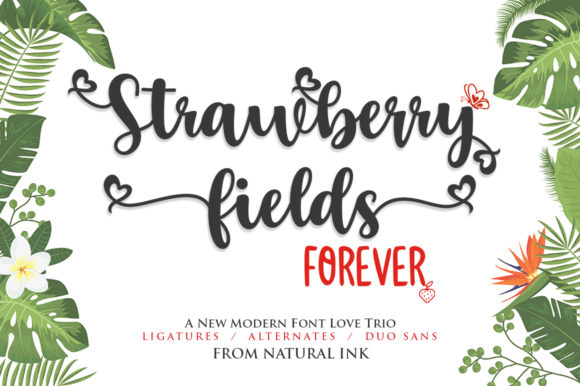
Strawberry Fields Forever Font: A Lovely Trio for Creative Projects
The Strawberry Fields Forever Font is a beautiful, handwritten-style font that has gained popularity among designers and artists. This lovely trio font offers different variations, making it versatile for various creative projects. In this article, we’ll explore the features, uses, and benefits of the Strawberry Fields Forever Font.
What is Strawberry Fields Forever Font?
Strawberry Fields Forever Font is a digital font designed to mimic the charm of handwritten writing. It’s a script font that features elegant, cursive letters with a touch of whimsy. The font comes in three variations, each with its unique characteristics, allowing designers to choose the one that best suits their project’s needs.
Features of Strawberry Fields Forever Font
The Strawberry Fields Forever Font boasts several features that make it a popular choice among designers:
- Handwritten style: The font’s handwritten style gives it a personal and artistic touch, making it perfect for creative projects.
- Lovely trio: The font comes in three variations, offering designers a range of options to choose from.
- Elegant and cursive: The font’s elegant and cursive letters make it suitable for projects that require a touch of sophistication.
- Whimsical: The font’s whimsical nature makes it perfect for projects that require a playful and artistic approach.
Uses of Strawberry Fields Forever Font
The Strawberry Fields Forever Font is versatile and can be used for various purposes, including:
- Logos: The font’s elegant and cursive letters make it perfect for creating logos that require a touch of sophistication.
- Wedding invitations: The font’s whimsical nature and handwritten style make it suitable for wedding invitations and other stationery.
- Headings: The font’s bold and elegant letters make it perfect for headings and titles.
- T-shirts: The font’s playful and artistic nature makes it suitable for designing t-shirts and other apparel.
- Letterhead: The font’s elegant and cursive letters make it perfect for creating letterheads and other business stationery.
- Signage: The font’s bold and whimsical nature makes it suitable for signage and other display purposes.
- Labels: The font’s elegant and cursive letters make it perfect for creating labels and other product packaging.
- News: The font’s bold and whimsical nature makes it suitable for newspaper and magazine headings.
- Posters: The font’s playful and artistic nature makes it perfect for designing posters and other promotional materials.
- Badges: The font’s elegant and cursive letters make it suitable for creating badges and other insignia.
Benefits of Using Strawberry Fields Forever Font
The Strawberry Fields Forever Font offers several benefits to designers and artists:
- Unique and creative: The font’s handwritten style and whimsical nature make it a unique and creative choice for designers.
- Versatile: The font’s versatility makes it suitable for various creative projects, from logos to posters.
- Elegant and sophisticated: The font’s elegant and cursive letters make it perfect for projects that require a touch of sophistication.
- Easy to read: The font’s clear and legible letters make it easy to read, even at small sizes.
- Customizable: The font’s digital format makes it easy to customize and edit for specific projects.
Tips for Using Strawberry Fields Forever Font
Here are some tips for using the Strawberry Fields Forever Font:
- Pair with other fonts: The font pairs well with other fonts, especially sans-serif fonts, to create a balanced and harmonious design.
- Use for headings and titles: The font’s bold and elegant letters make it perfect for headings and titles.
- Experiment with colors: The font’s whimsical nature makes it suitable for experimenting with different colors and textures.
- Use for creative projects: The font’s creative and artistic nature makes it perfect for creative projects, such as posters, badges, and logos.
The Strawberry Fields Forever Font is a lovely trio font that offers different variations of the handwritten style. Its versatility, elegance, and whimsical nature make it perfect for various creative projects, from logos to posters. With its clear and legible letters, the font is easy to read and customize, making it a popular choice among designers and artists.
- What is the Strawberry Fields Forever Font? The Strawberry Fields Forever Font is a digital font designed to mimic the charm of handwritten writing.
- How many variations does the font come in? The font comes in three variations, each with its unique characteristics.
- What is the font suitable for? The font is suitable for various creative projects, including logos, wedding invitations, headings, t-shirts, letterhead, signage, labels, news, posters, badges, and more.
- Is the font easy to read? Yes, the font’s clear and legible letters make it easy to read, even at small sizes.